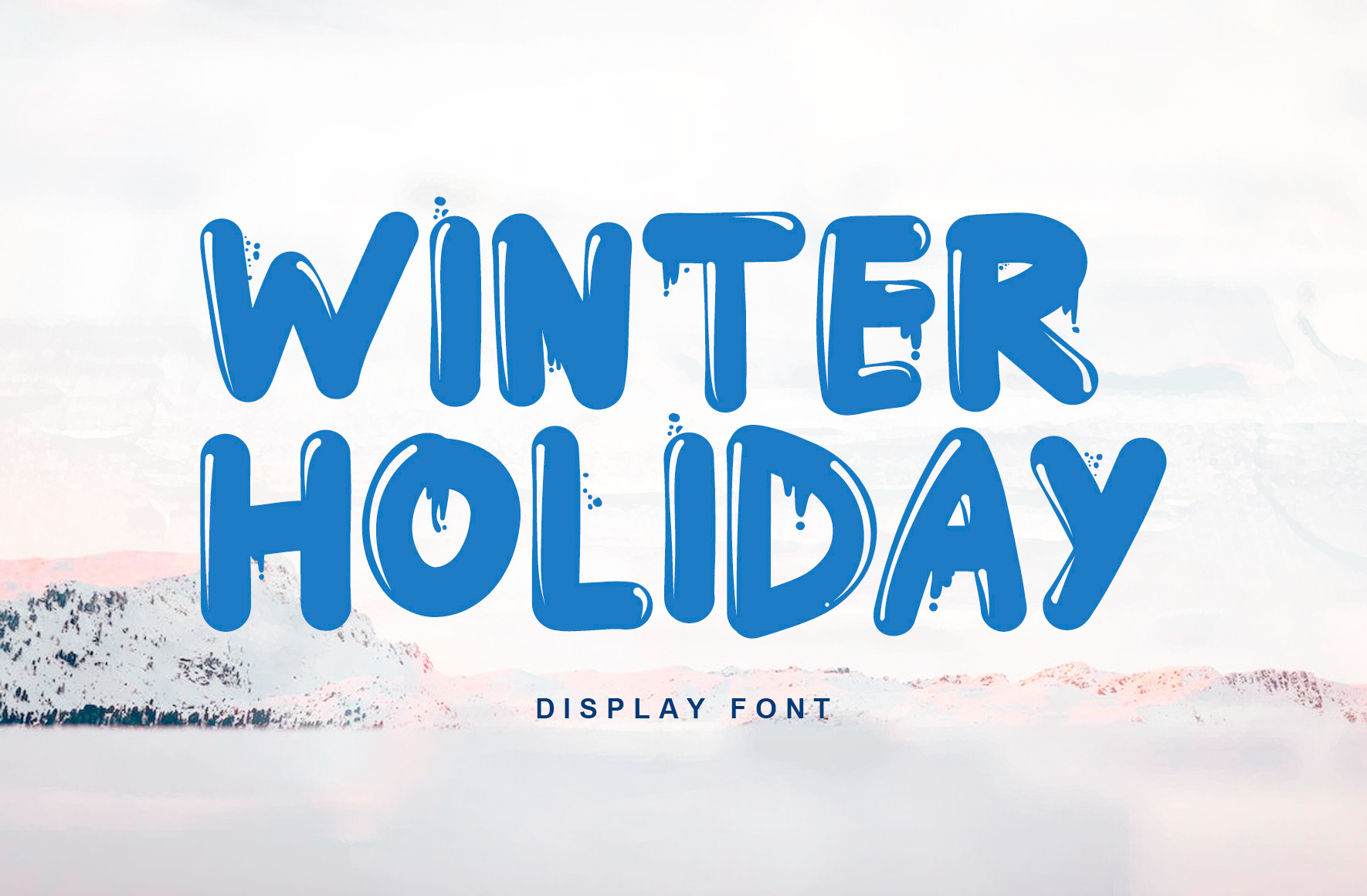
Winter Holiday - Playful Font
Winter Holiday is a bold and playful all-caps sans-serif font that includes Five versions of each letter which can be used separately or on top of each other to achieve a different look. This font is PUA encoded which means you can access all of the glyphs and alternates with ease!
This font is good for Tshirt design, branding design, Social media, Movie Titles, Books Titles, and posters. Make a stunning work with Winter Holiday font. (please type the preview to see if I have what you need!)